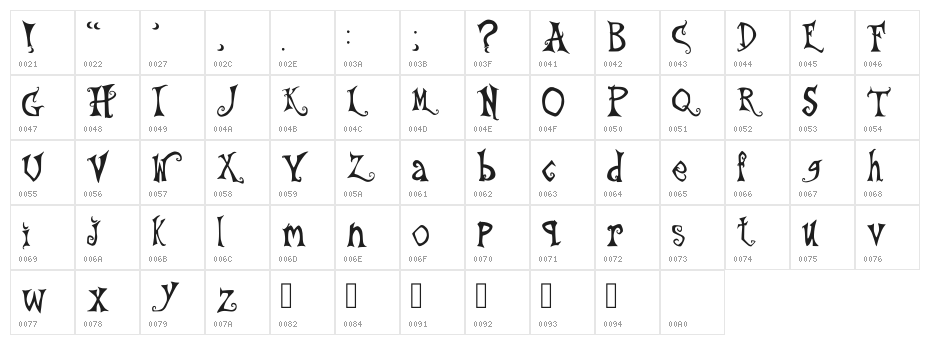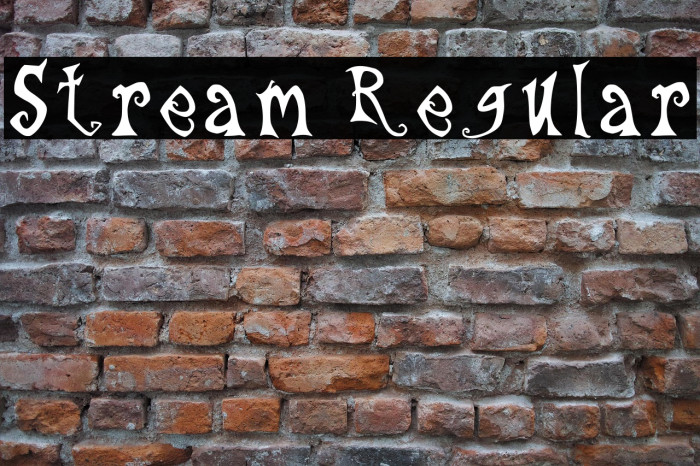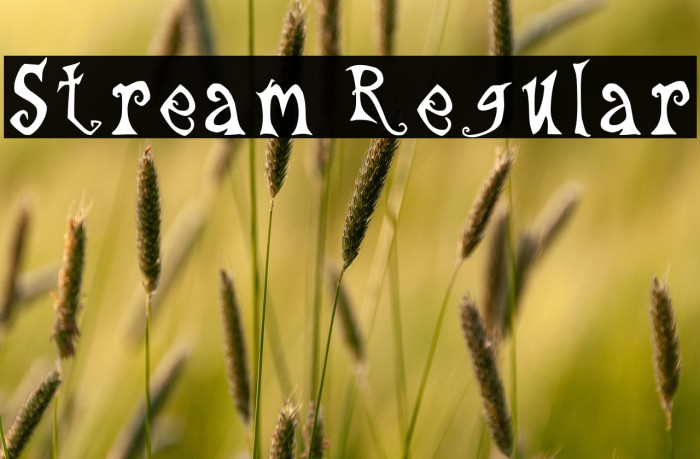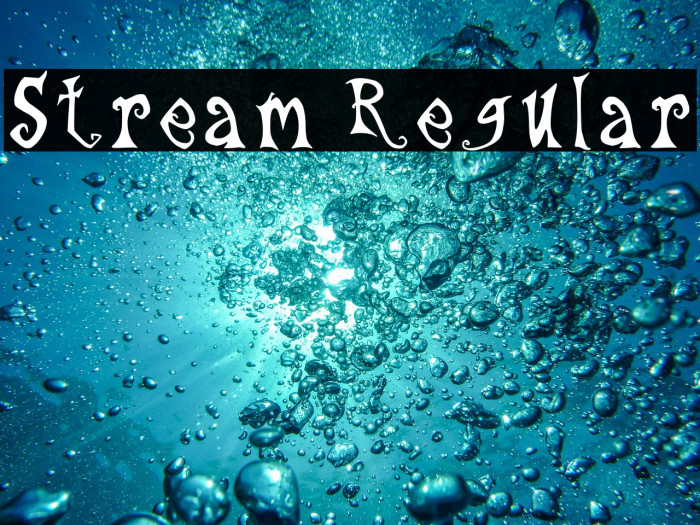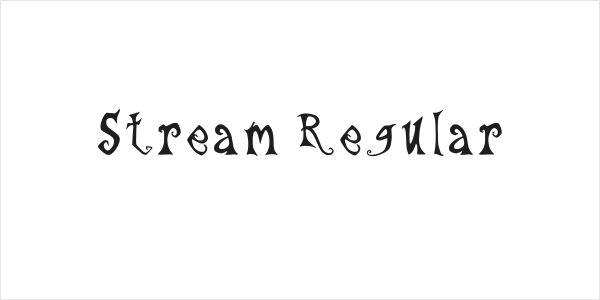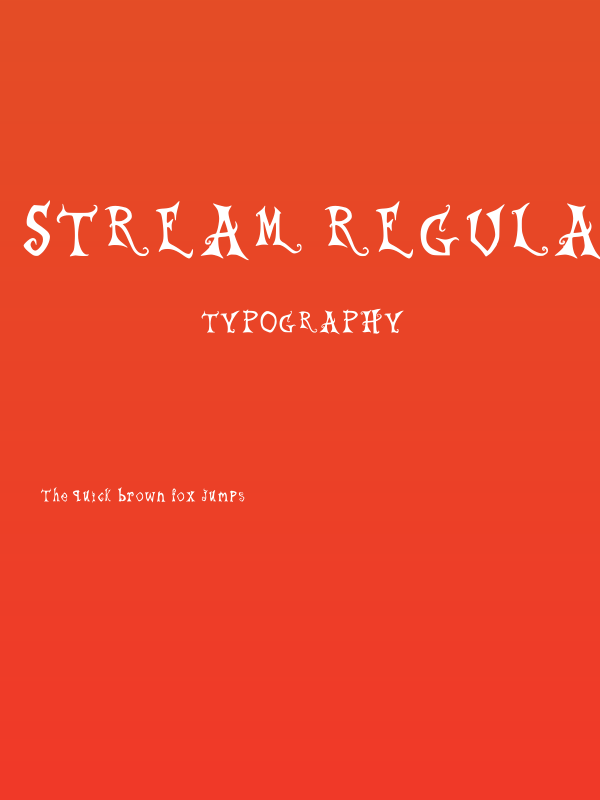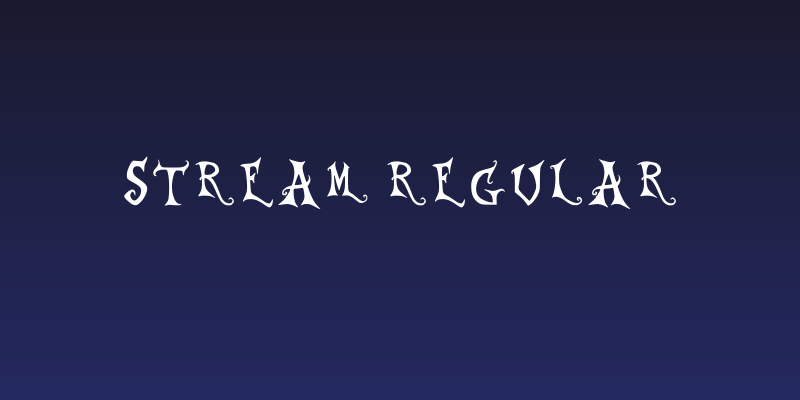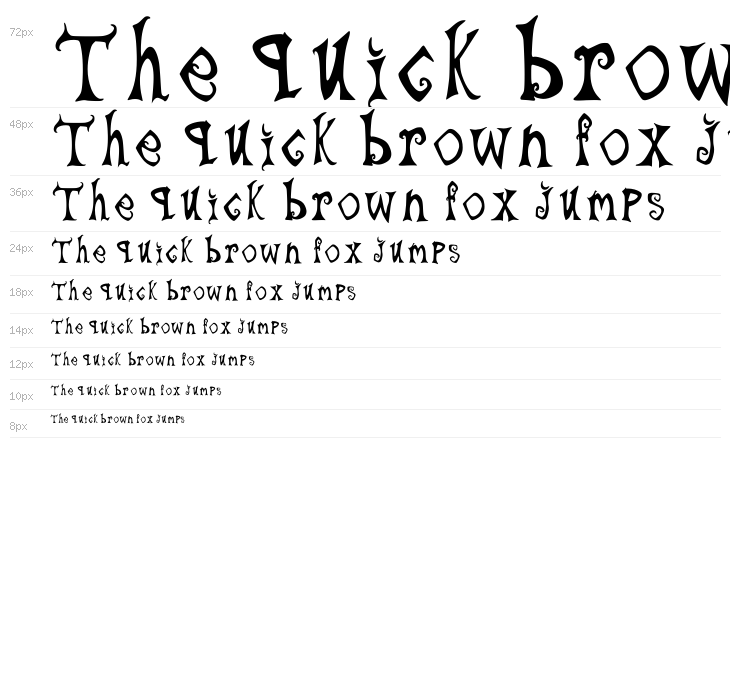
Stream Regular Font
Fonts by Maria Hylian Cryptid
| Caso d'uso | Headlines, Logos, Invitations |
| Progetti proposti | Ideal for fantasy-themed designs, children's books, creative branding, and decorative invitations. |